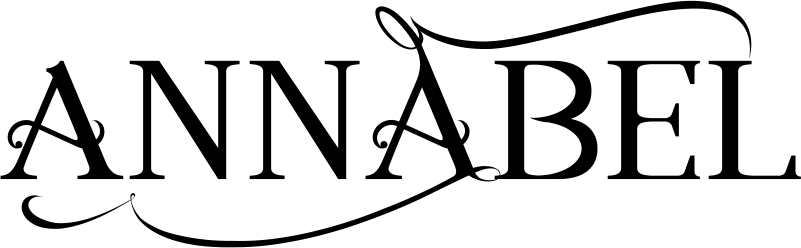
Annabel Font
Annabel font has a classic font style commonly used in many universal designs. There are various schemes in the large characters, some of which have continuous scratches, and some of the characters are seen as a series of very small crescent lines.
Although it does not have small letters, the uniqueness of this font will show your design very confidently and luxuriously. Use this serif font to design invitation cards.